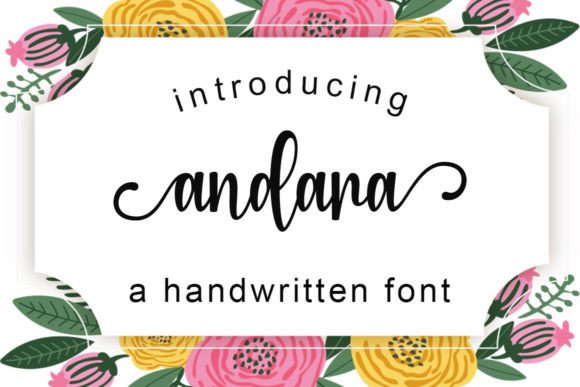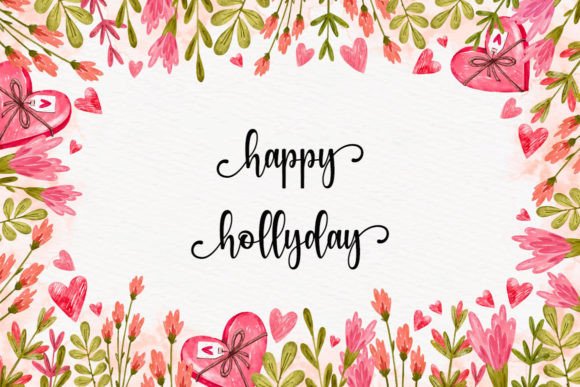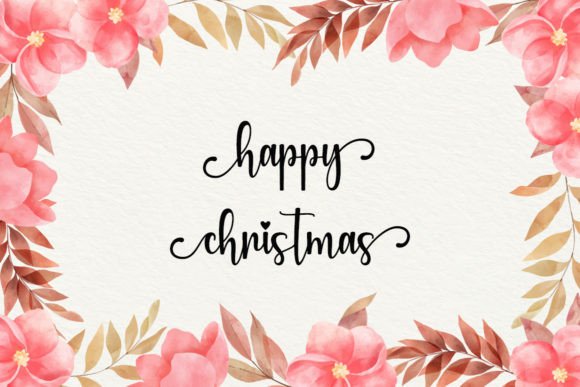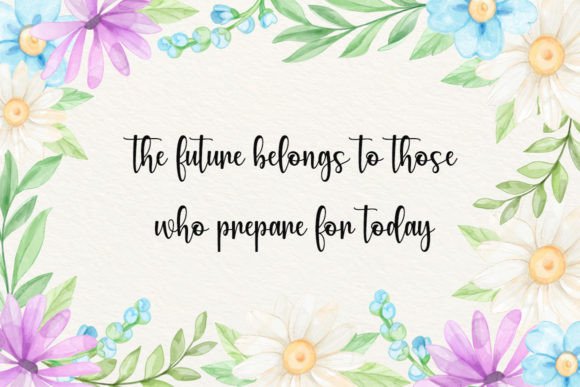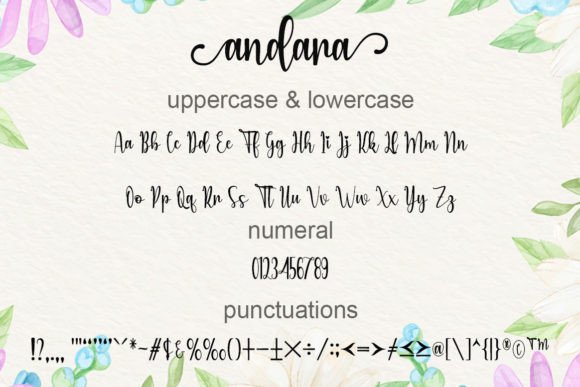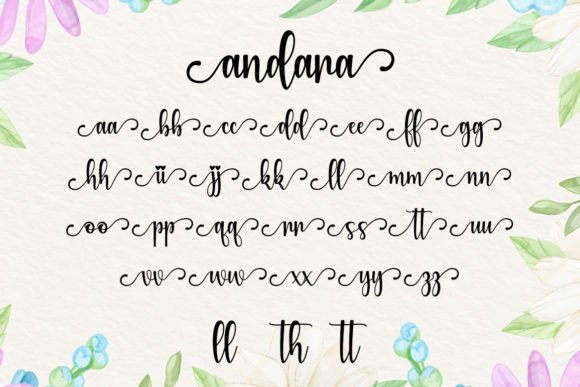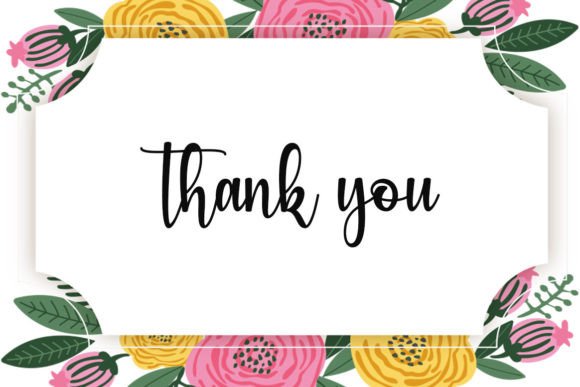
Andara Font
An Enchanting Script Font for Creative Projects
The Andara Font is an enchanting script typeface designed to elevate your designs with a sophisticated, artistic flair. Its graceful, flowing characters make it perfect for a wide range of creative applications. Whether you’re working on logos, branding, quotes, or business cards, the Andara Font adds a touch of elegance and style that will make your projects stand out and leave a lasting impression.
Perfect for Logos and Branding
For logos and branding, the Andara Font offers a beautiful, distinctive style that will help your brand make a memorable impact. Whether you’re designing for a luxury brand, creative business, or personal brand, this font brings an authentic, timeless touch to your logo and brand identity. Its elegant script ensures your brand stands out with sophistication and style.
Ideal for Quotes and Social Media Graphics
The Andara Font is perfect for quotes and social media graphics. Whether you’re creating motivational quotes, inspirational posts, or promotional materials, this font adds a charming, personalized touch to your content. Its legibility and beautiful flowing strokes make it ideal for social media platforms, ensuring your posts capture attention and engage your audience effectively.
Great for Clothing and Tote Bags
For clothing designs and tote bags, the Andara Font adds a stylish, contemporary feel to your creations. Whether you’re working on custom t-shirts, sweatshirts, or personalized tote bags, this font’s elegant script ensures your designs stand out and feel both charming and unique. Its adaptability makes it a great fit for fashion and merchandise, adding personality and warmth to any piece.
Perfect for Business Cards and Stationery
The Andara Font is ideal for business cards and stationery. Whether you’re designing professional business cards, letterheads, or thank you notes, this font provides a polished and memorable look. Its charming script style ensures your business materials feel both approachable and sophisticated, making them stand out in a professional yet personalized way.
Elegant, Legible, and Versatile
Despite its elegant script style, the Andara Font remains legible and easy to use. Its smooth, flowing characters are well-spaced, ensuring your text is easy to read, even in smaller sizes or for longer passages. Whether you’re creating headlines, captions, or body text, this font strikes the perfect balance of beauty and clarity, making it ideal for various types of creative applications.
PUA Encoded for Easy Access to Glyphs and Ligatures
The Andara Font is PUA encoded, meaning you can easily access all of its glyphs and ligatures. This feature allows you to fully customize your text by incorporating decorative elements and special characters into your designs. Whether you’re adding flourishes to your logo or creating custom invitations, this font provides the flexibility to make your projects even more unique and stylish.
The Andara Font is easy to use and integrates seamlessly into most design software. Whether you’re working on logos, branding, business cards, or social media graphics, this font ensures your designs are polished and professional. Its versatility makes it perfect for both digital and print media, allowing you to use it across various creative platforms.
Add Elegance and Style to Your Designs with Andara Font
If you’re looking for an enchanting, elegant, and versatile handwritten font to elevate your designs, the Andara Font is the perfect choice. Whether you’re working on logos, branding, quotes, or business cards, this font adds a sophisticated, artistic touch to your work. Let the Andara Font bring style, charm, and elegance to your projects and help your designs stand out with uniqueness and professionalism.